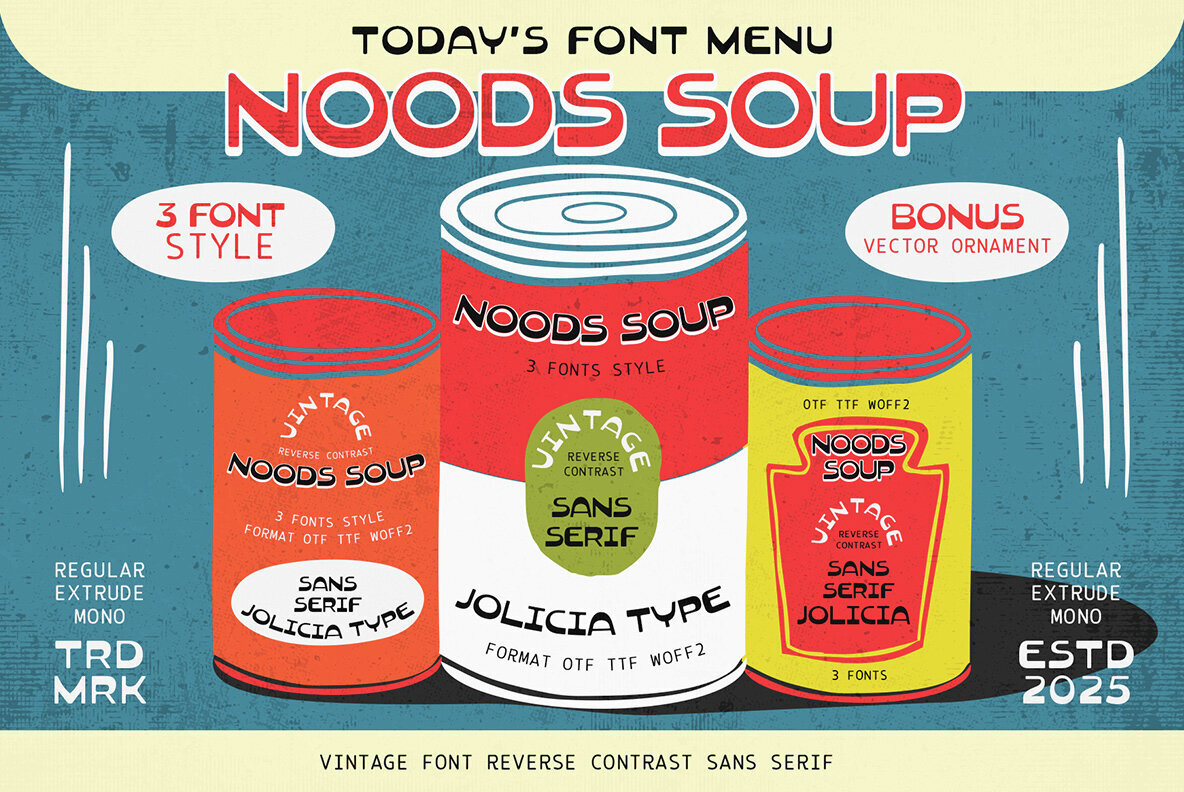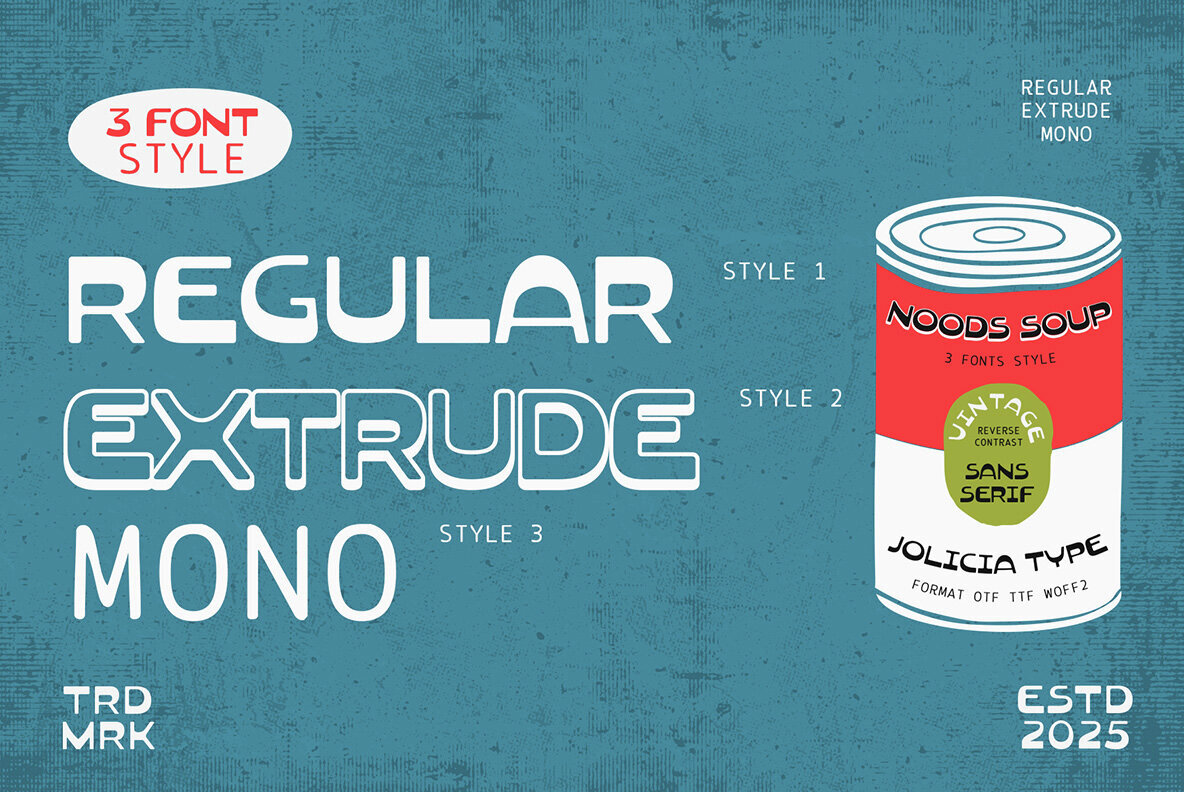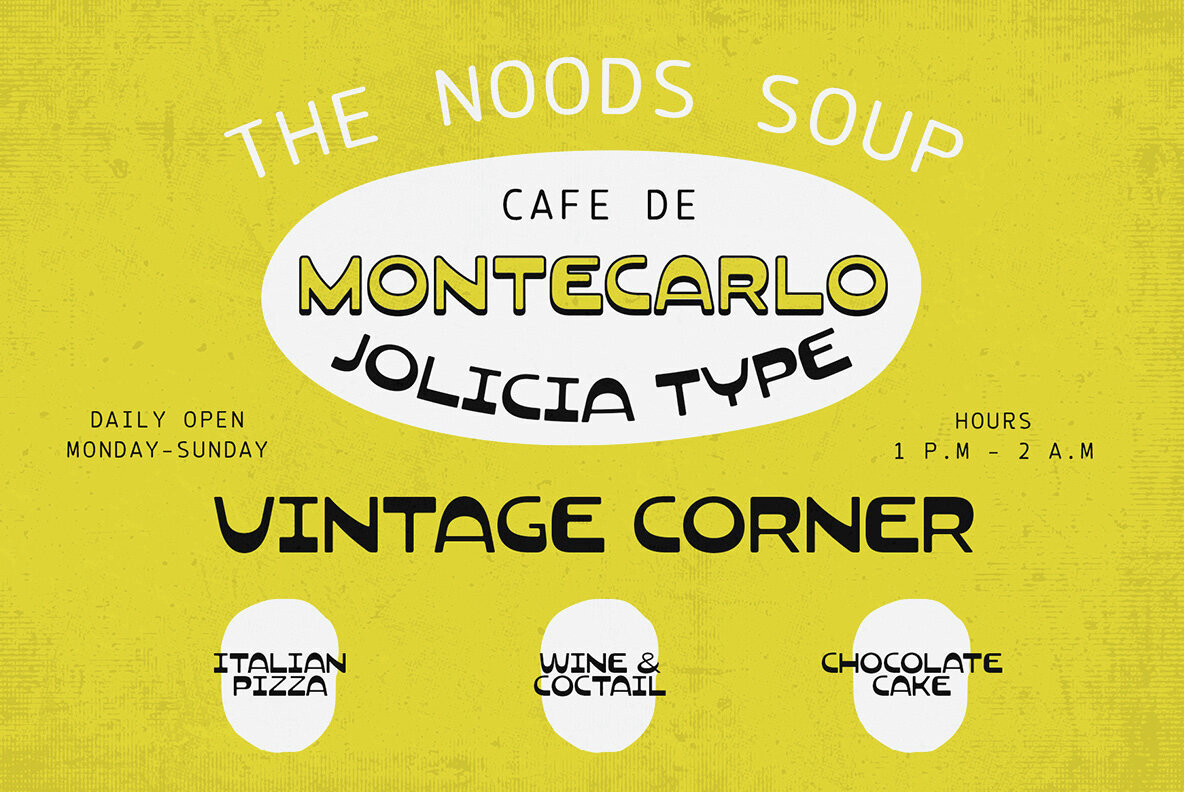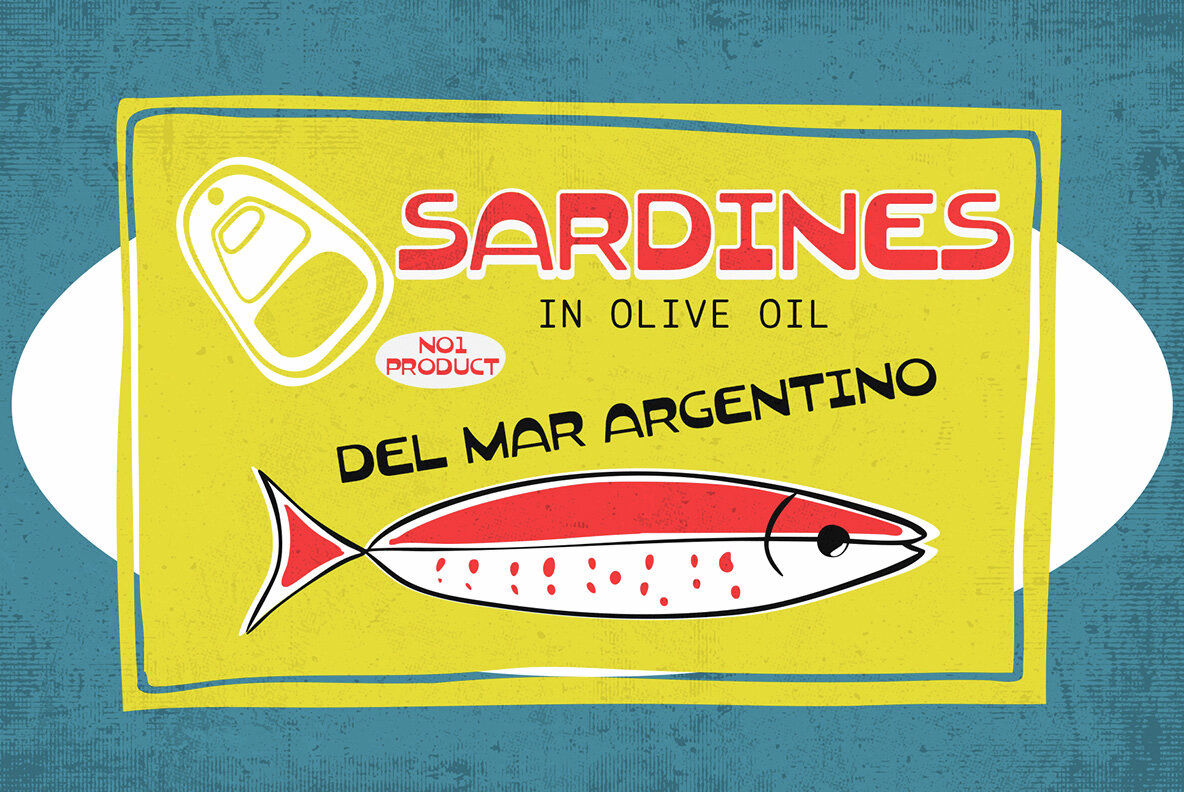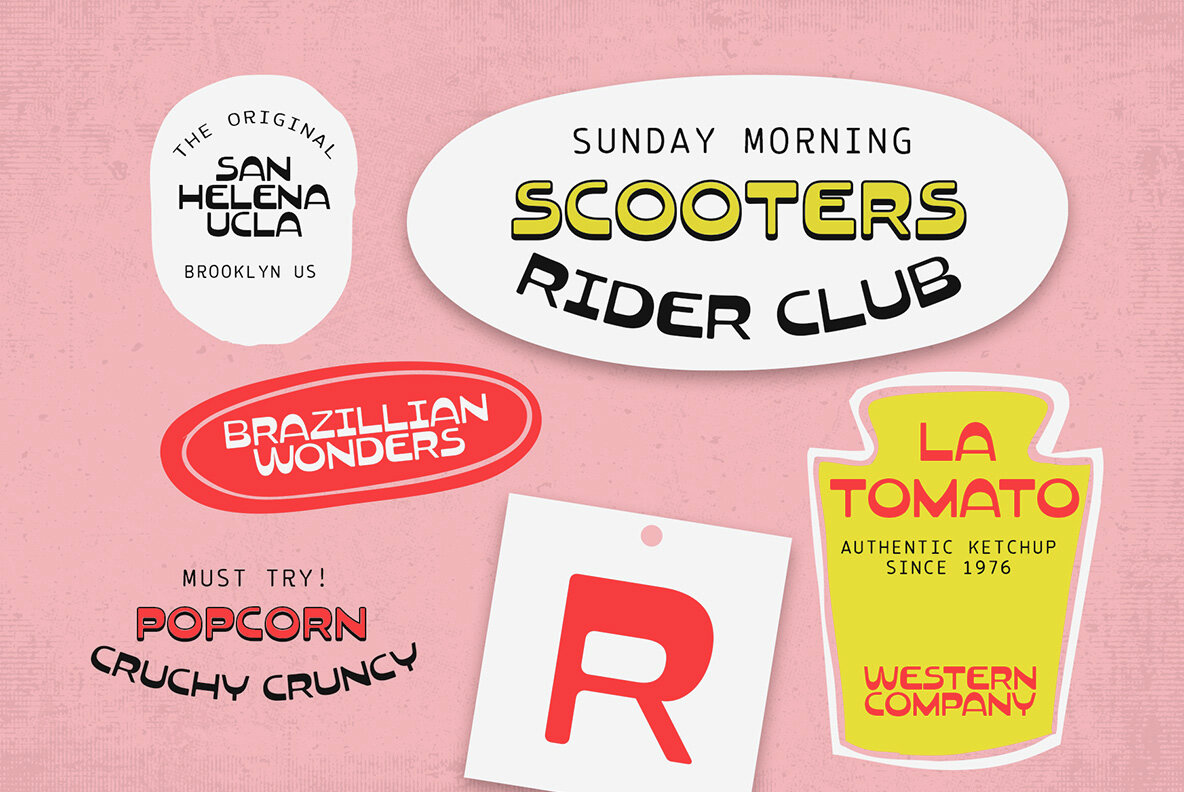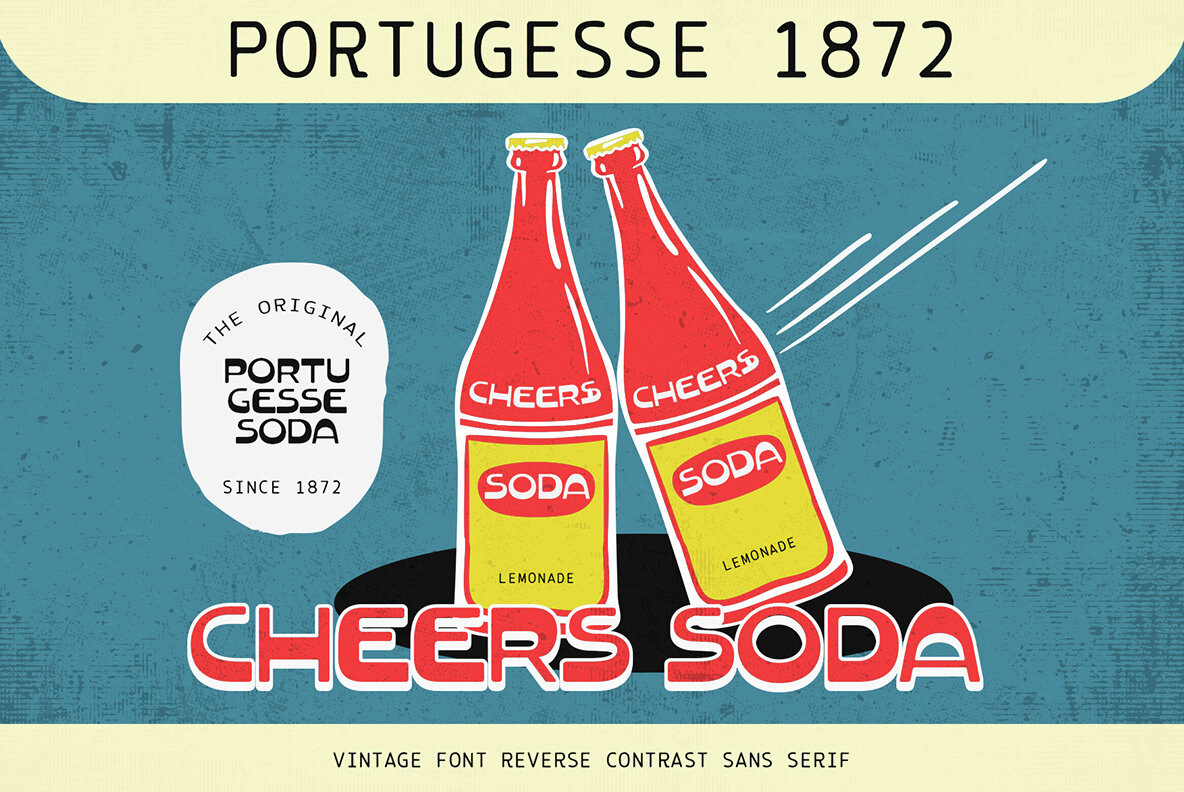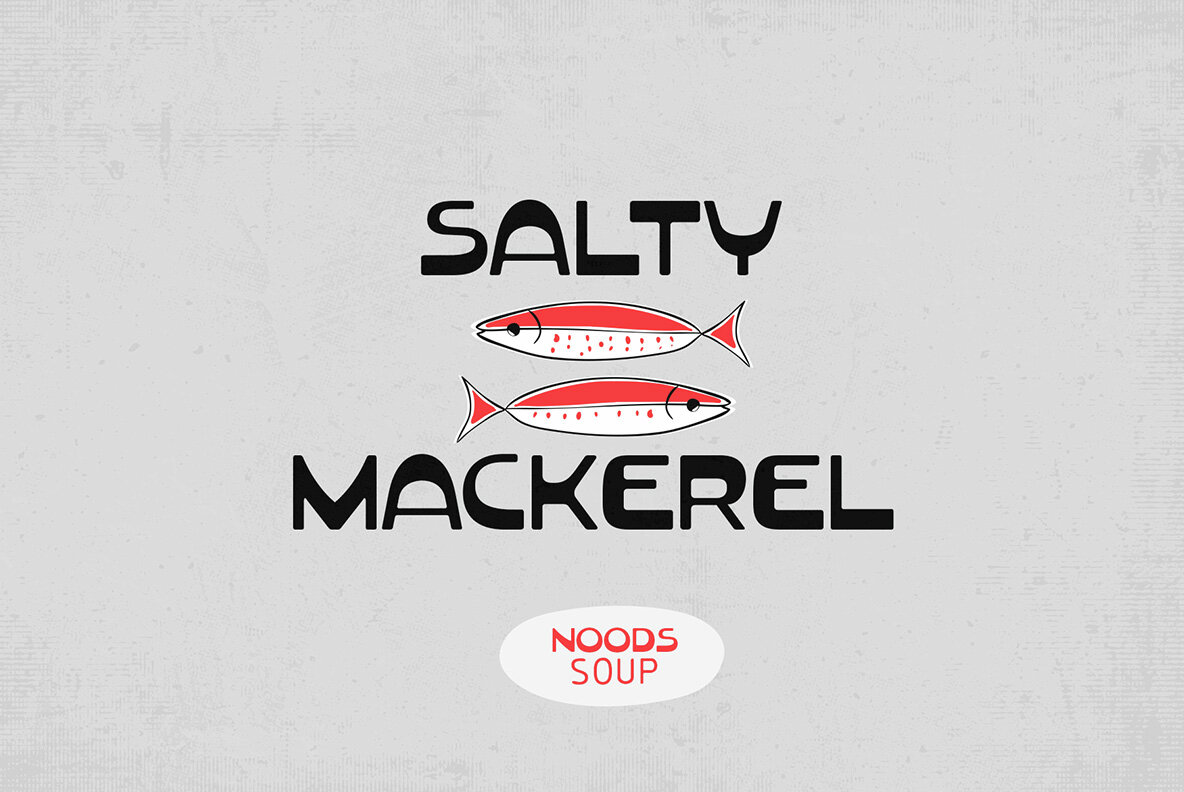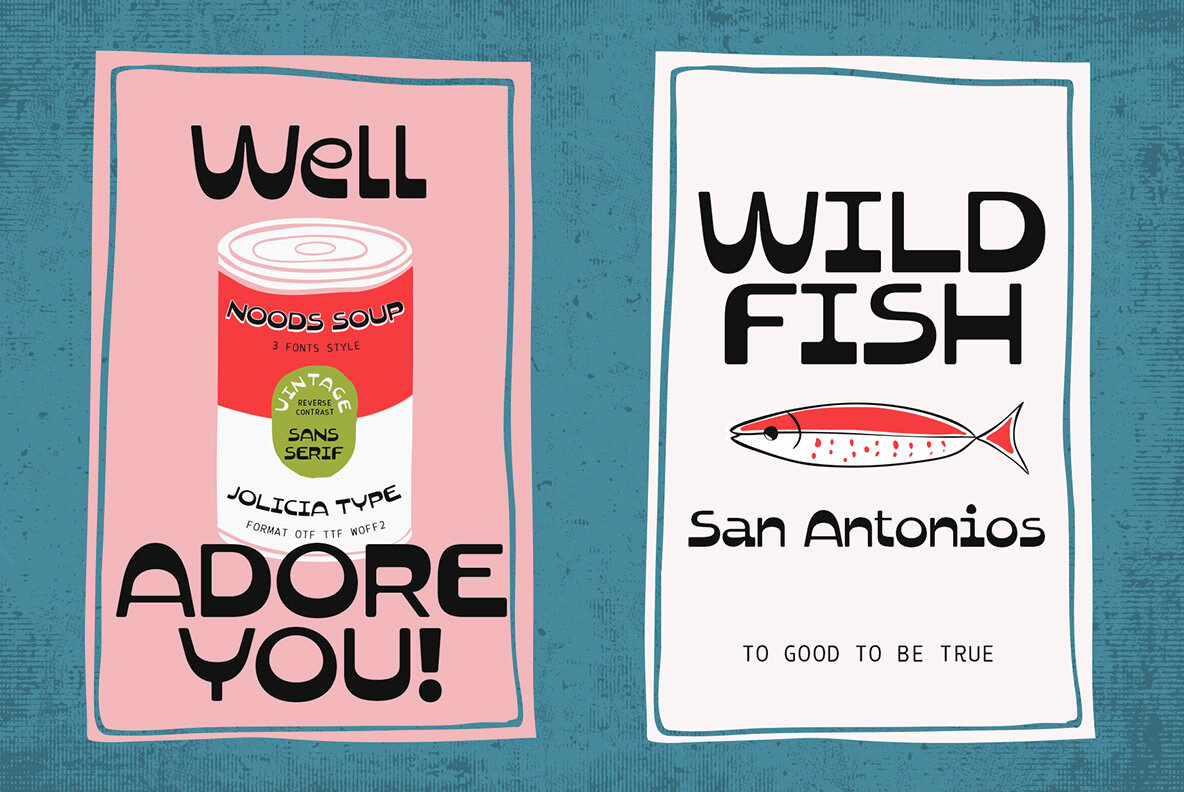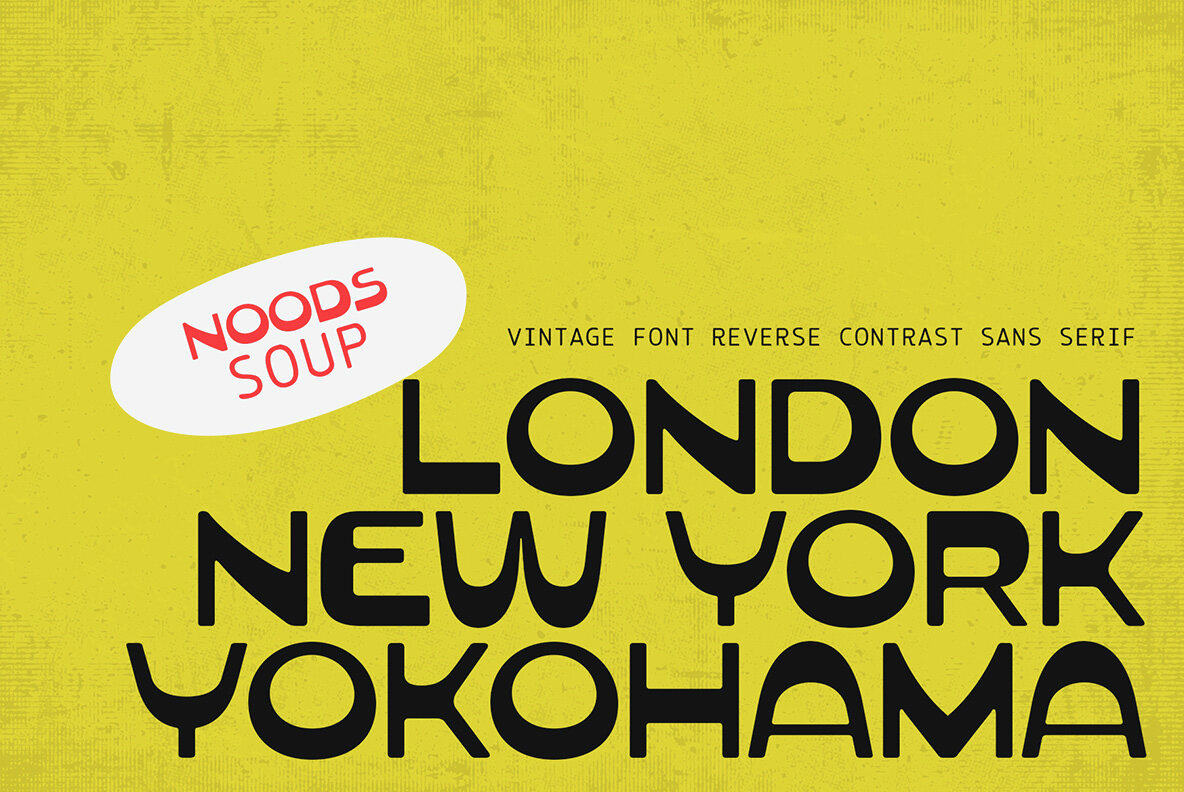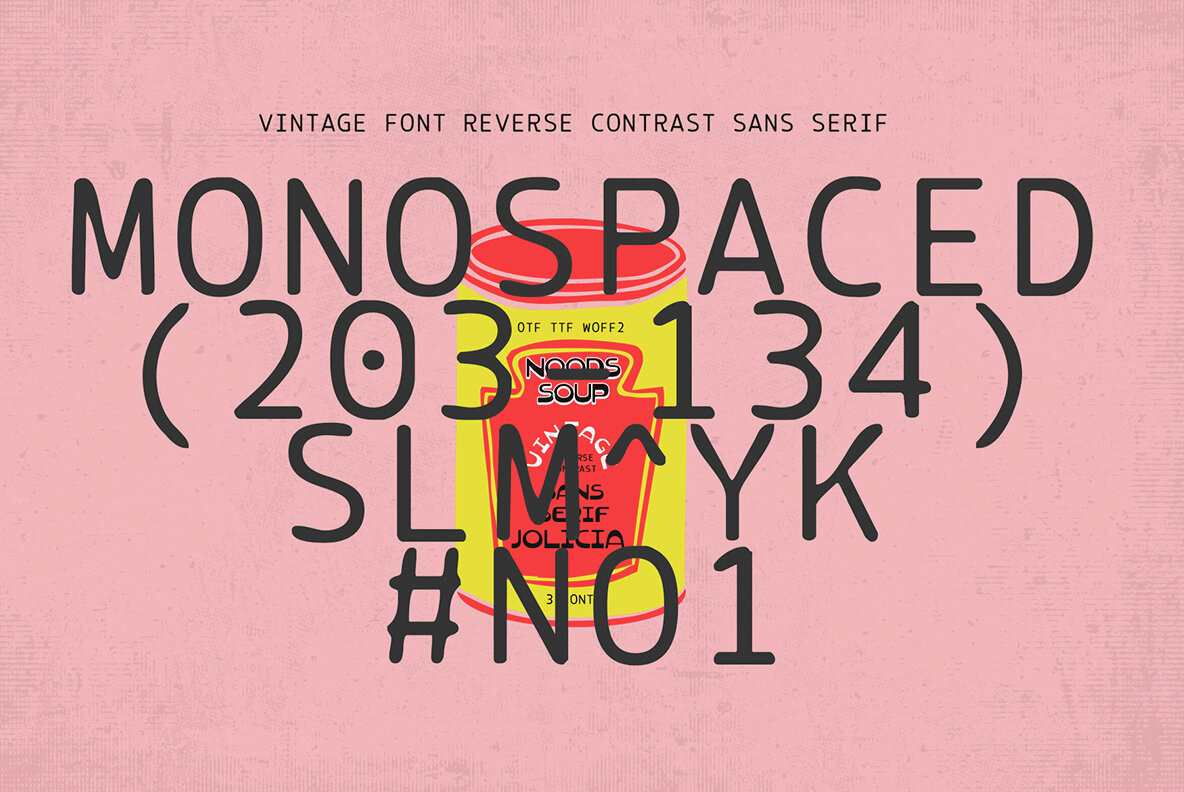
Noods Soup Font
Noods Soup Regular
Noods Soup Extrude
Noods Soup Mono
Embrace a delightful journey to the past with Noods Soup, a typeface that reflects the engaging essence of vintage lettering while adapting to the demands of contemporary design. With its endearing features and ageless charm, Noods Soup injects immediate character into any project. Noods Soup is a retro-inspired font featuring bold characters infused with nostalgia. Its blend of styles offers versatility, making it an ideal companion for a variety of vintage-themed creative endeavors. Features: This seamless integration of styles makes Noods Soup perfect for posters, logos, food packaging, beverage labels, signage, and retro branding projects. Each letterform is meticulously crafted to capture the nostalgic allure of classic typography while staying fresh and versatile. Bonus: Each purchase includes a set of vintage vector ornaments, adding a touch of old-school charm to your design projects.Noods Soup: Playful Retro Typography